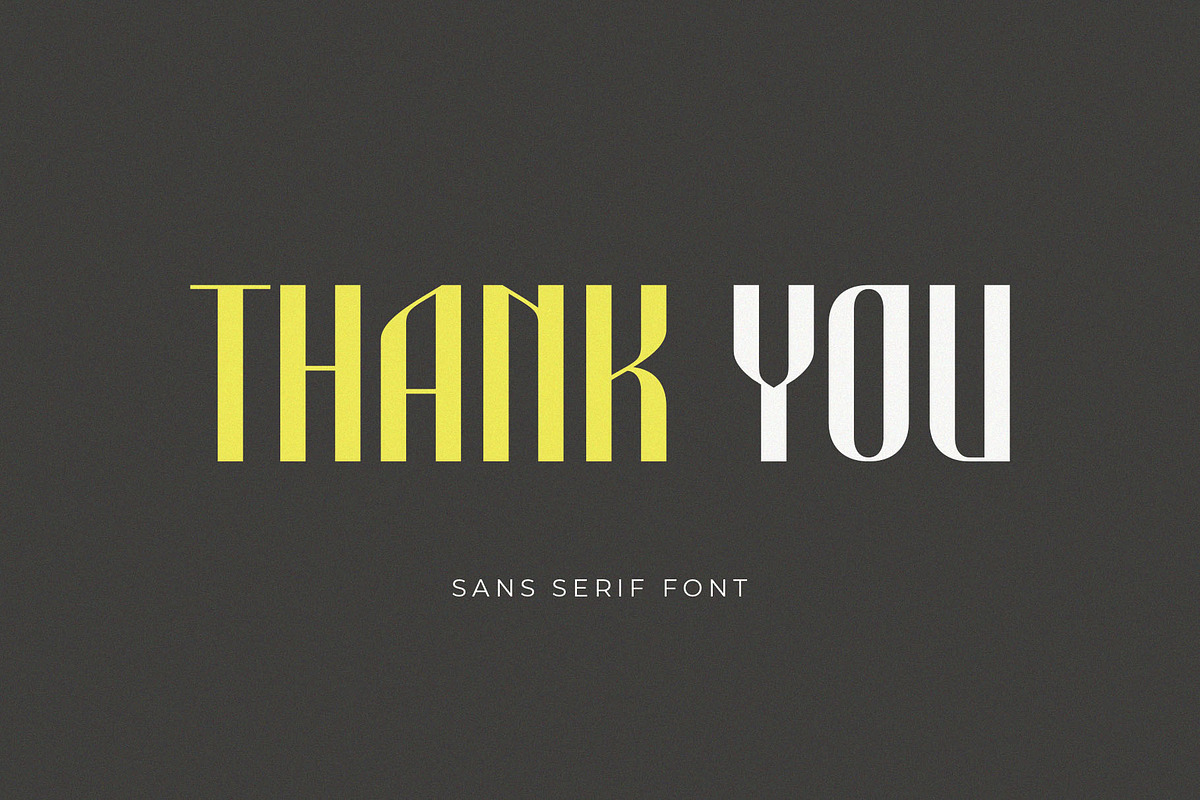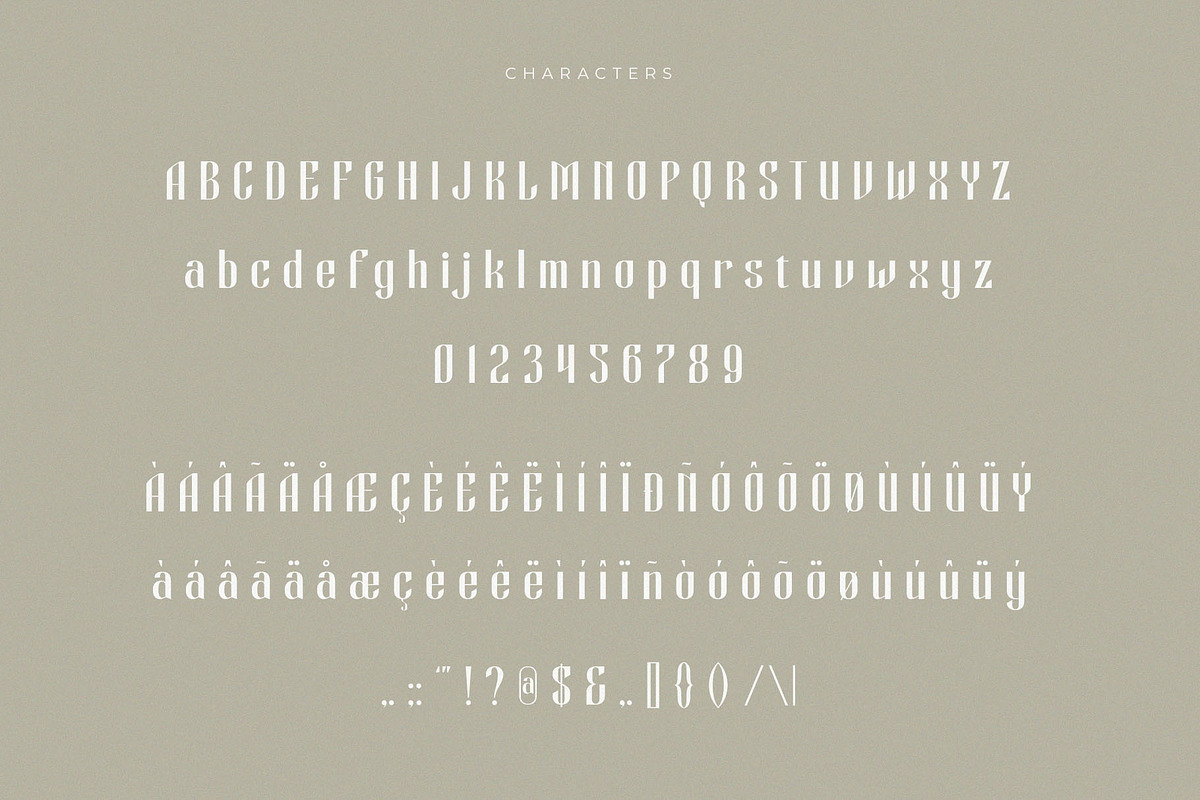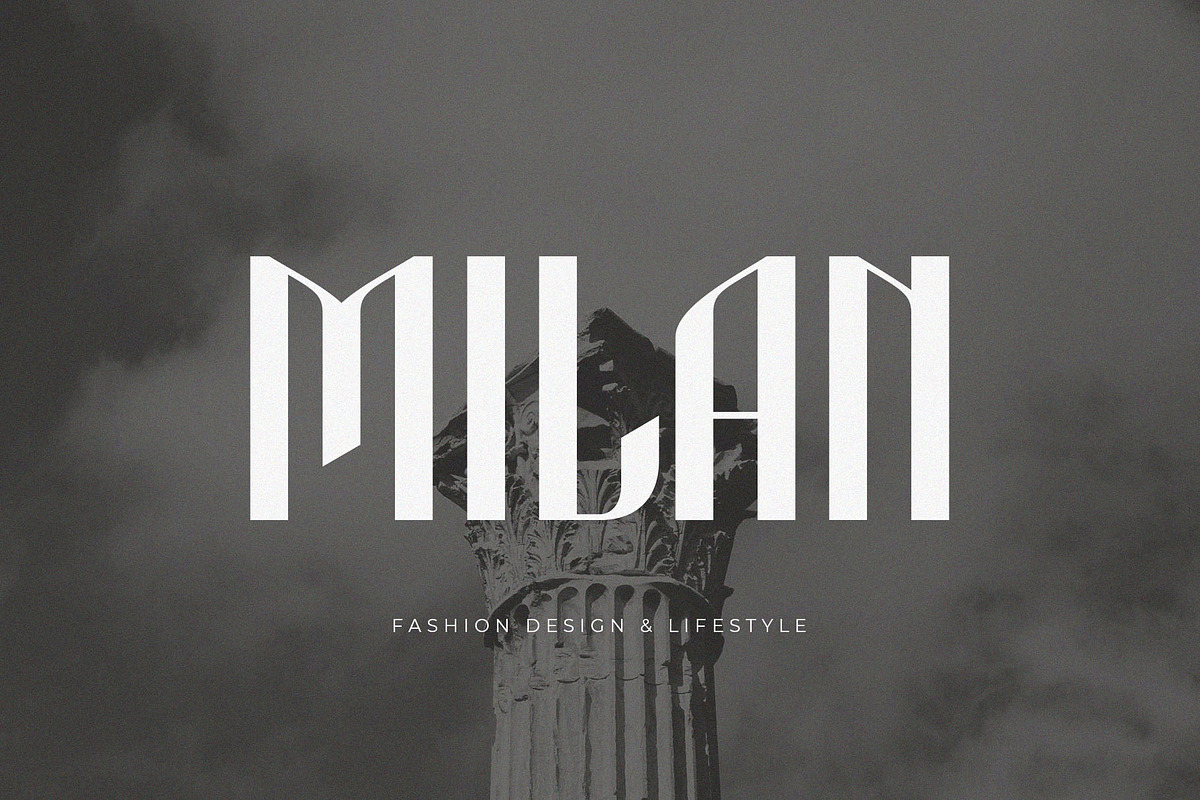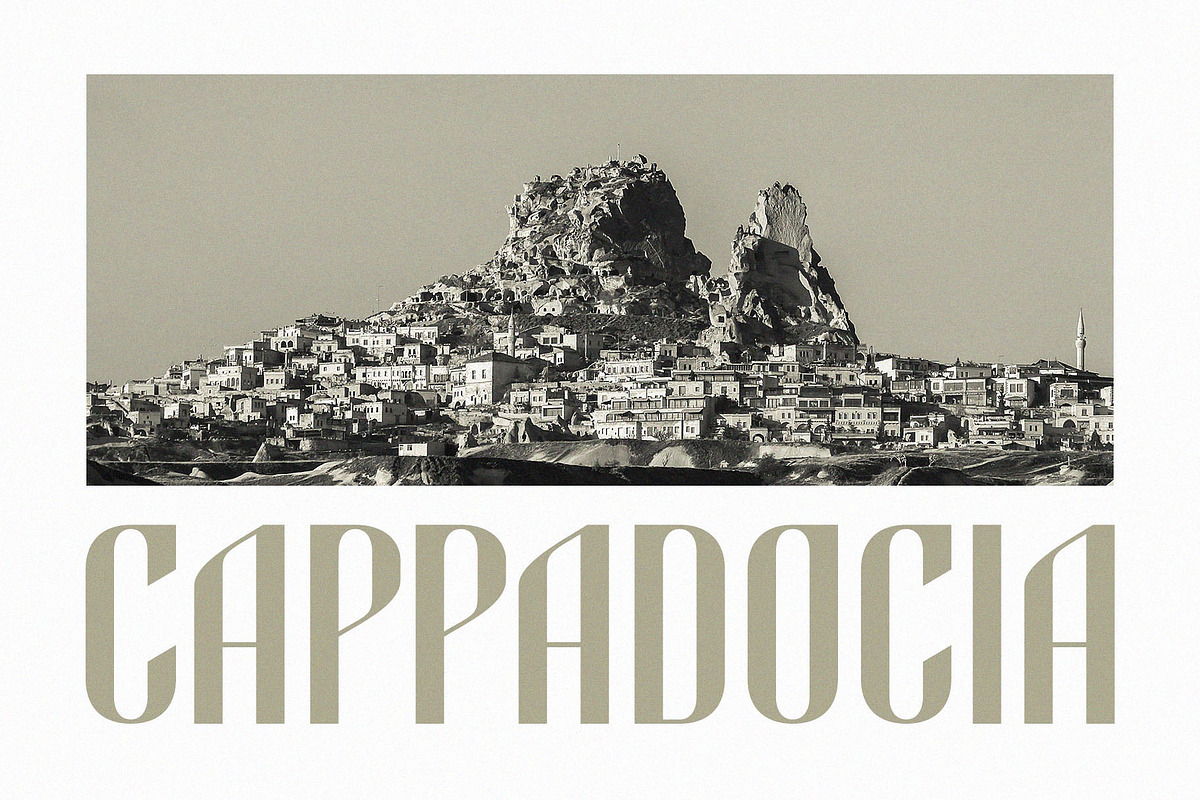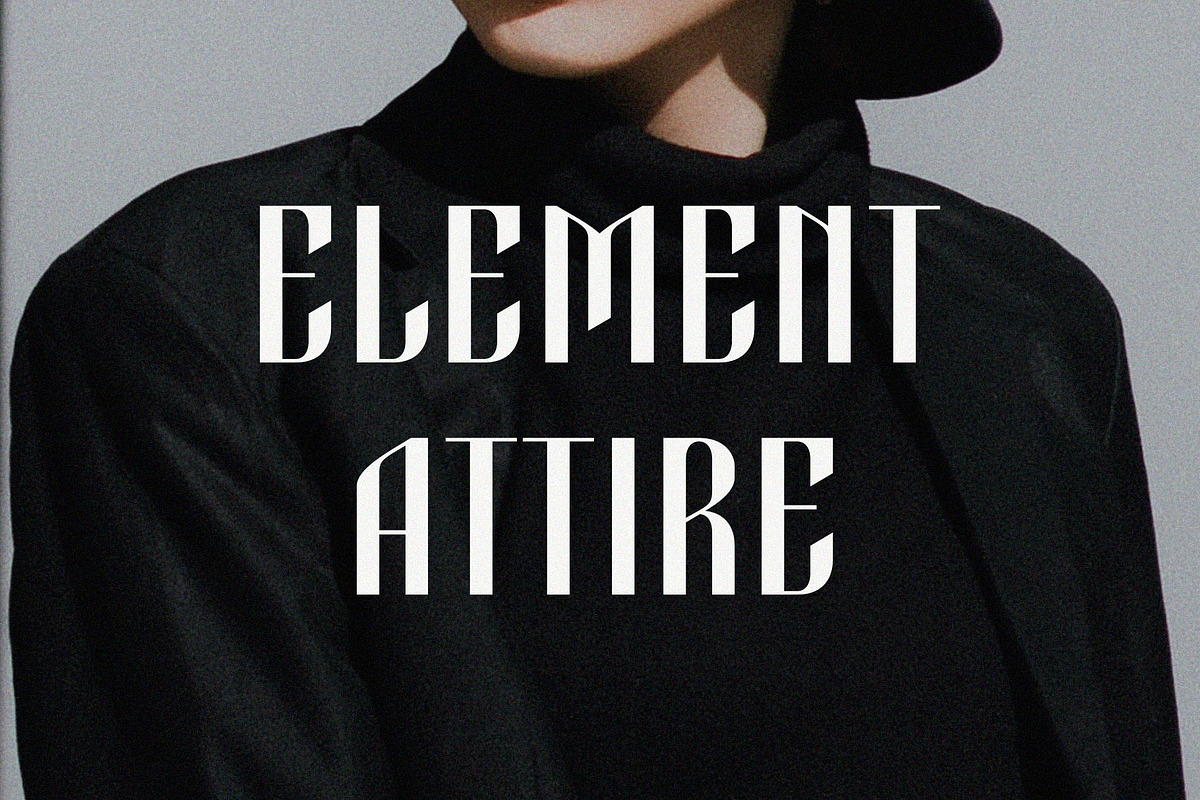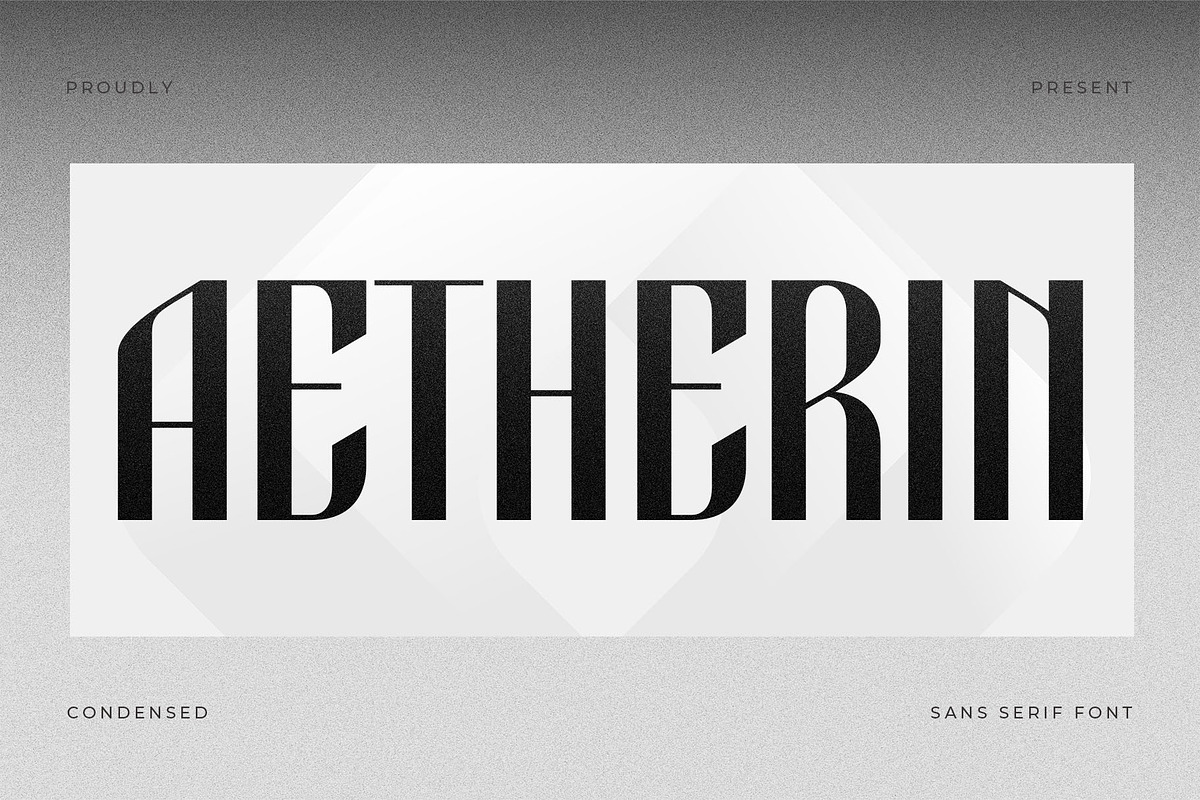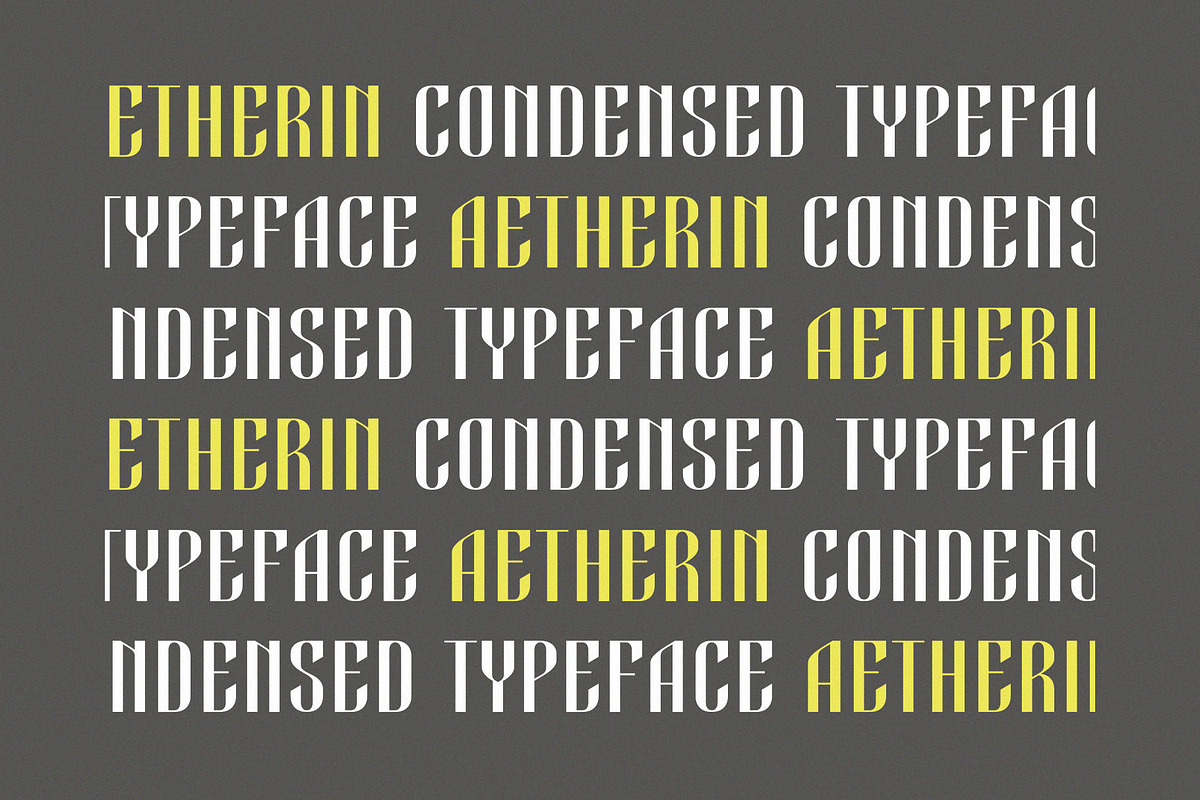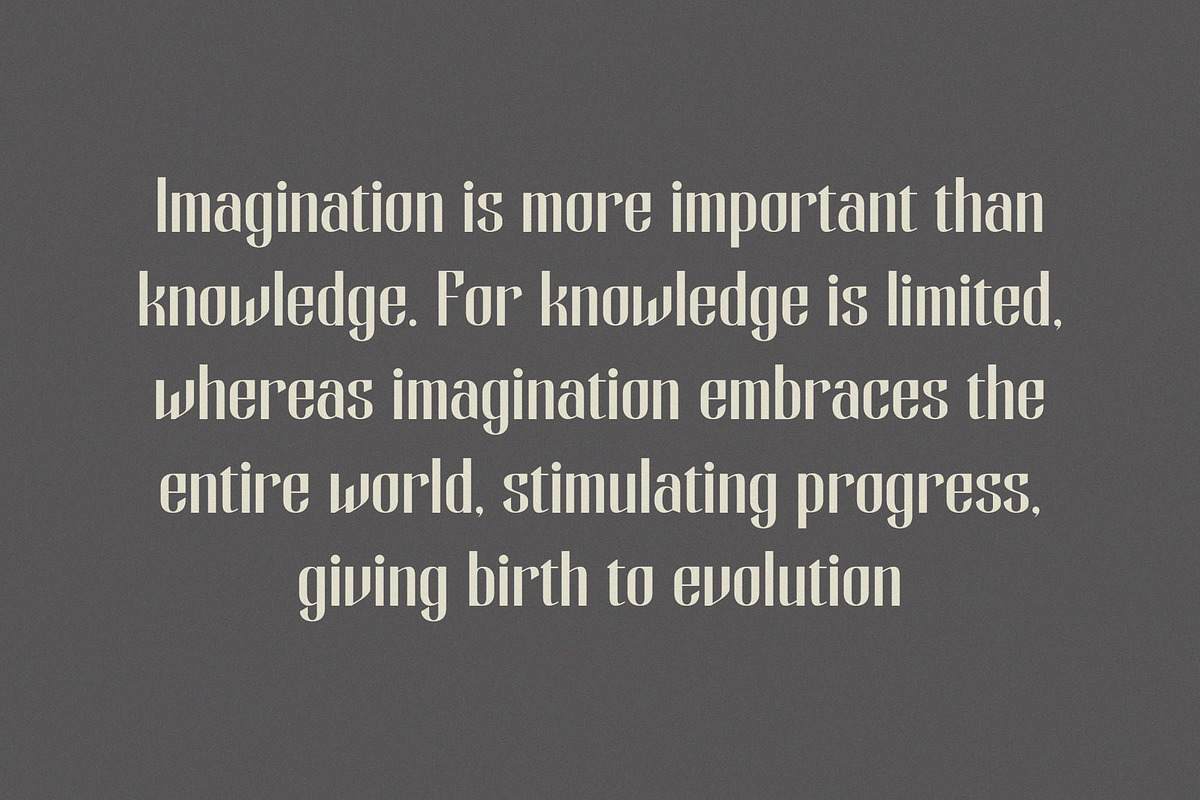
Aetherin Retro Modern Condensed Sans
Aetherin – Retro Modern Condensed Sans Serif Font for Editorial, Branding & Logo Design
Aetherin is a bold and elegant condensed sans serif font inspired by retro-futuristic aesthetics. With its unique letterform construction and stylish geometric strokes, Aetherin blends vintage charm with modern edge — making it the perfect choice for high-impact headlines, fashion editorials, luxury logos, and creative branding.
This typeface features sharp vertical contrast, a sleek condensed structure, and distinct character shapes that bring a timeless sophistication to any design.
- Editorial layouts & magazine titles
- High-end branding and packaging
- Fashion & lifestyle logos
- Retro posters with a modern twist
- Album art and cinematic graphics
- Uppercase and Lowercase characters
- Stylishly condensed proportions
- Clean vector lines optimized for print and digital
Let Aetherin elevate your visual identity with a sophisticated type style that speaks elegance, power, and creative flair.